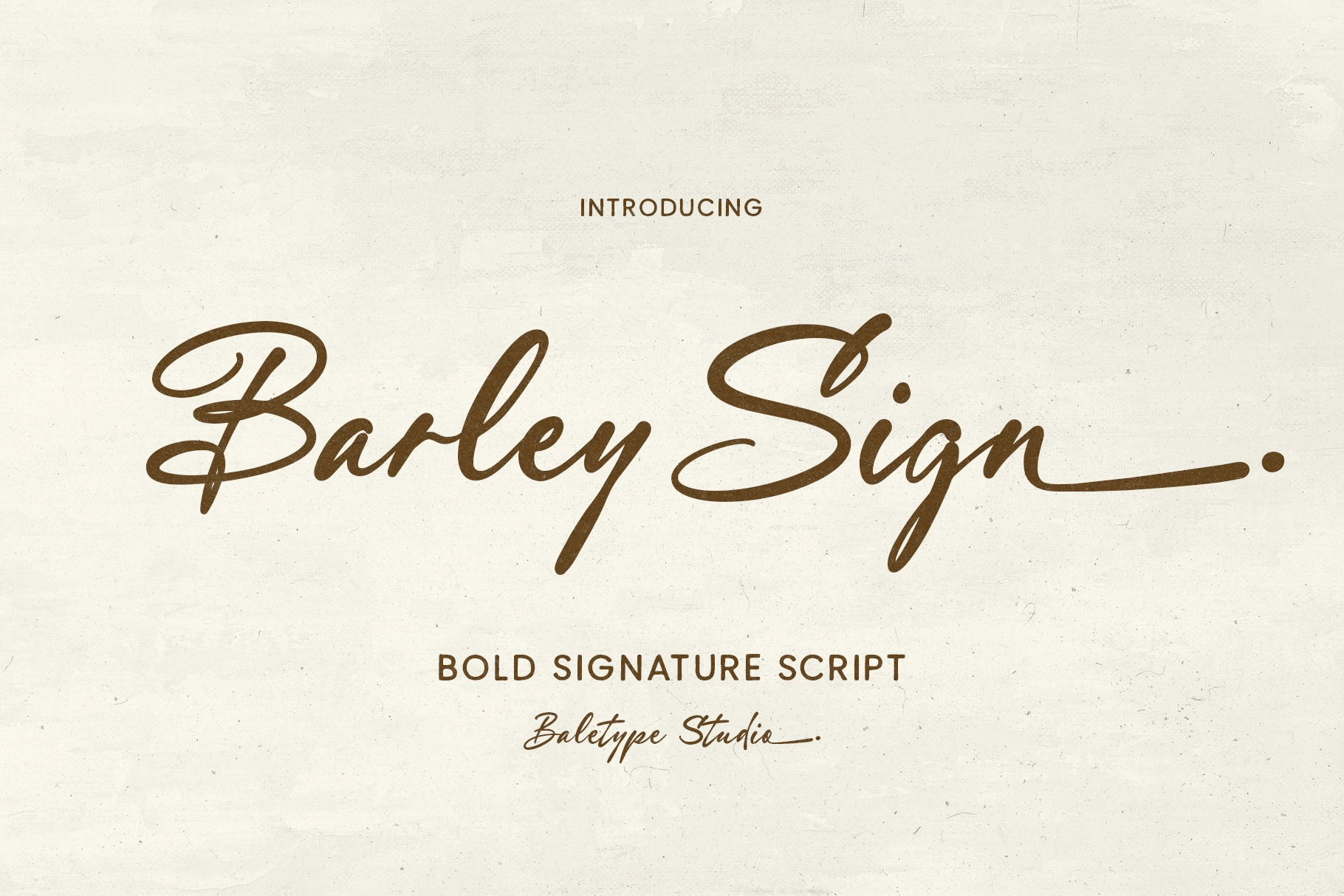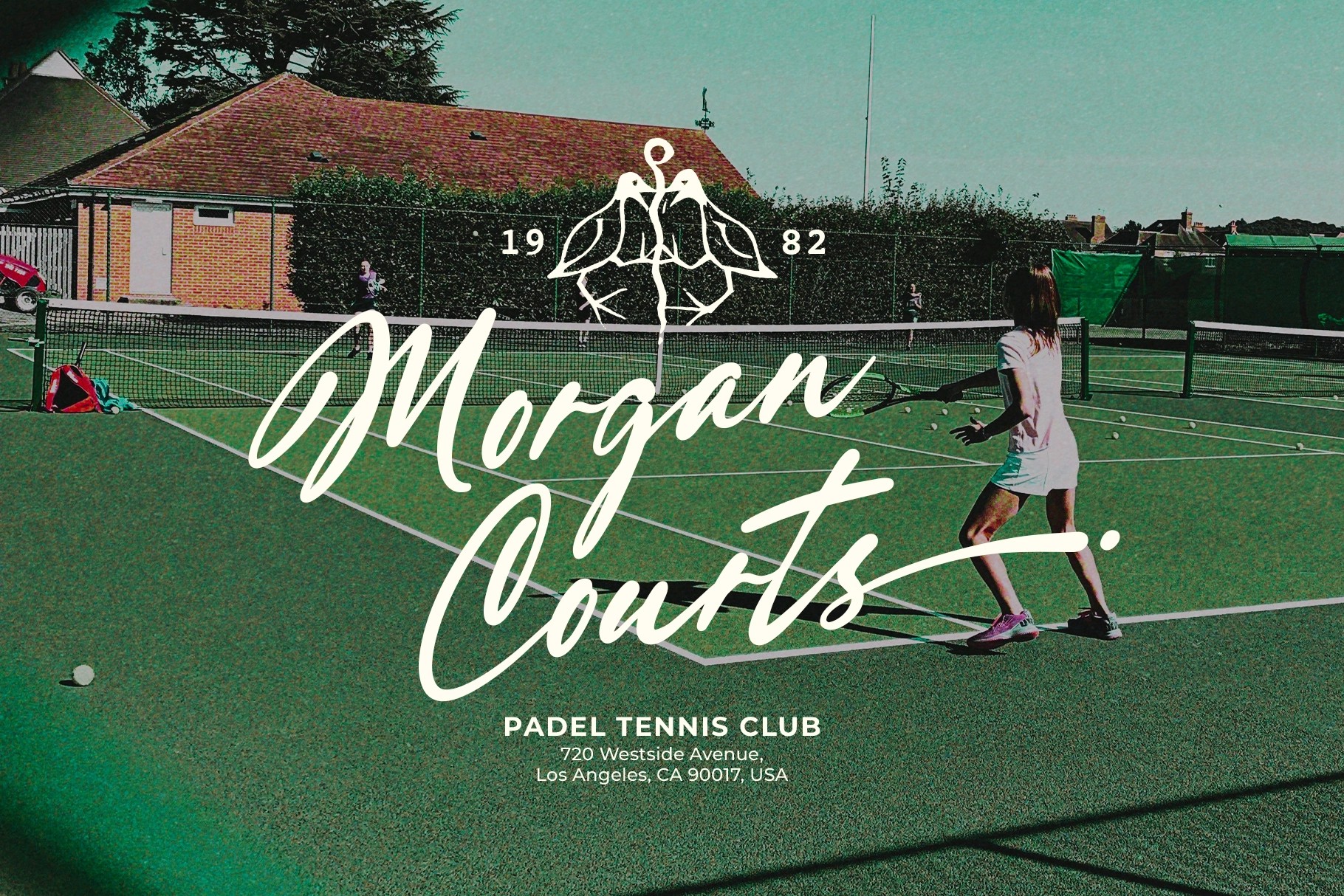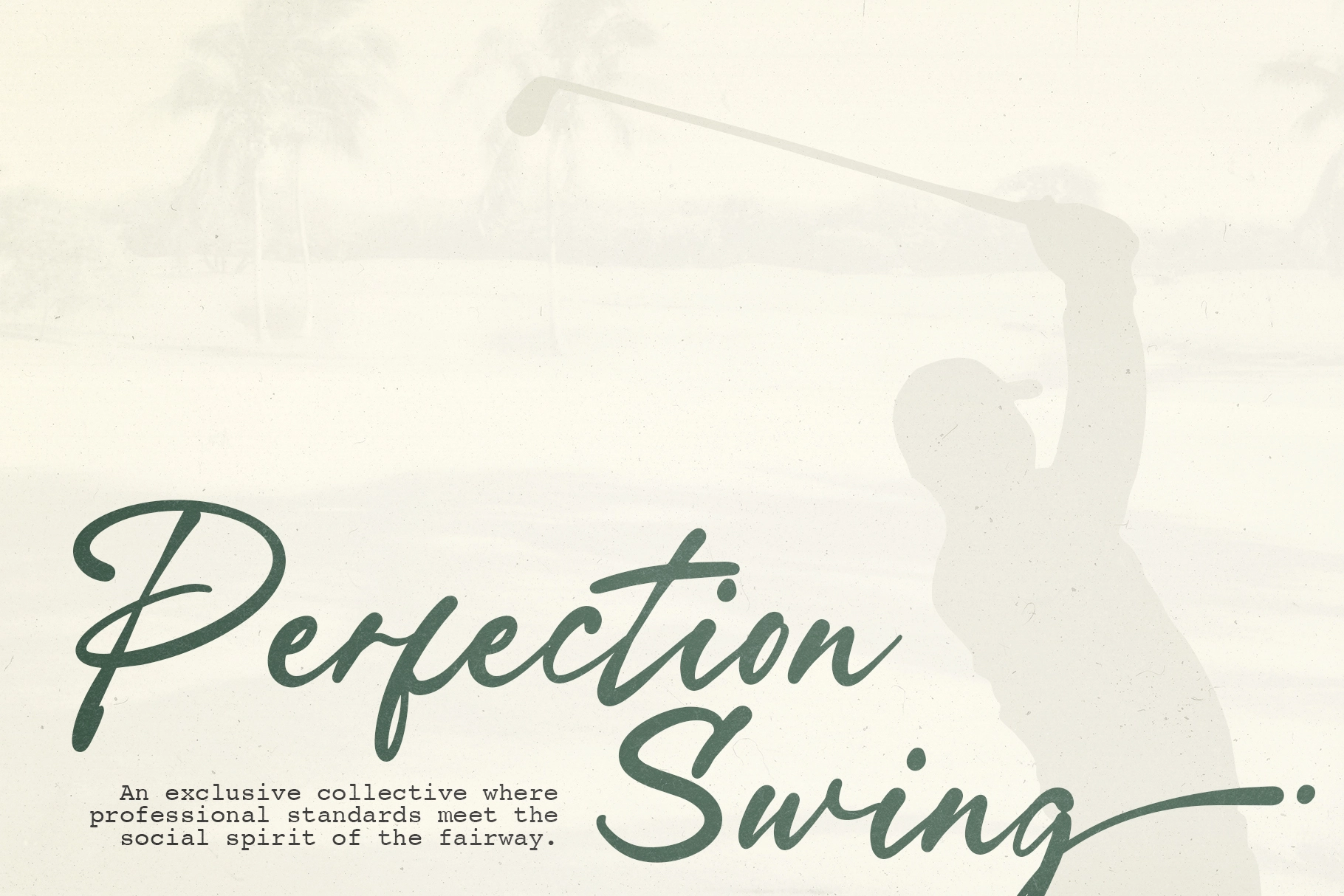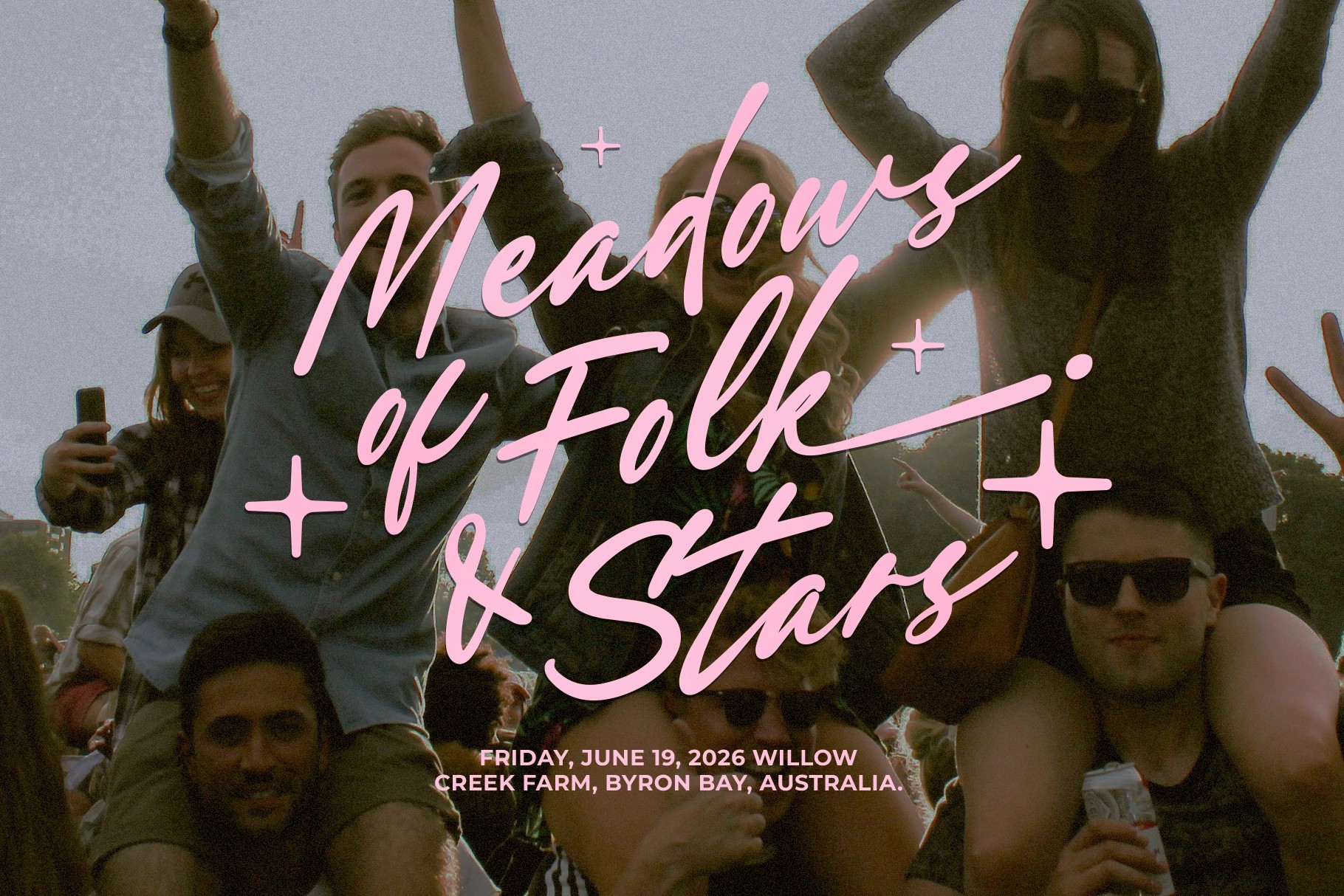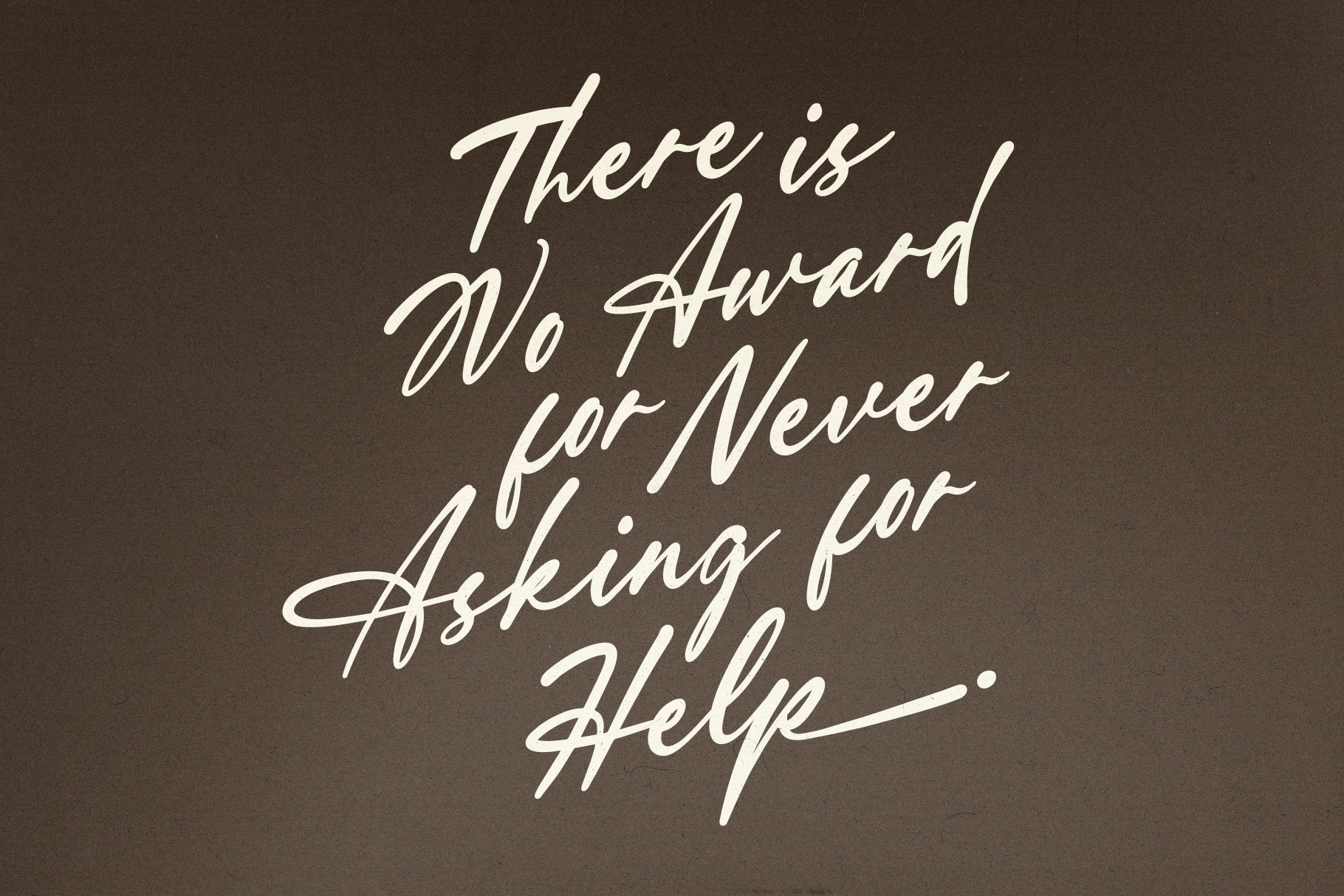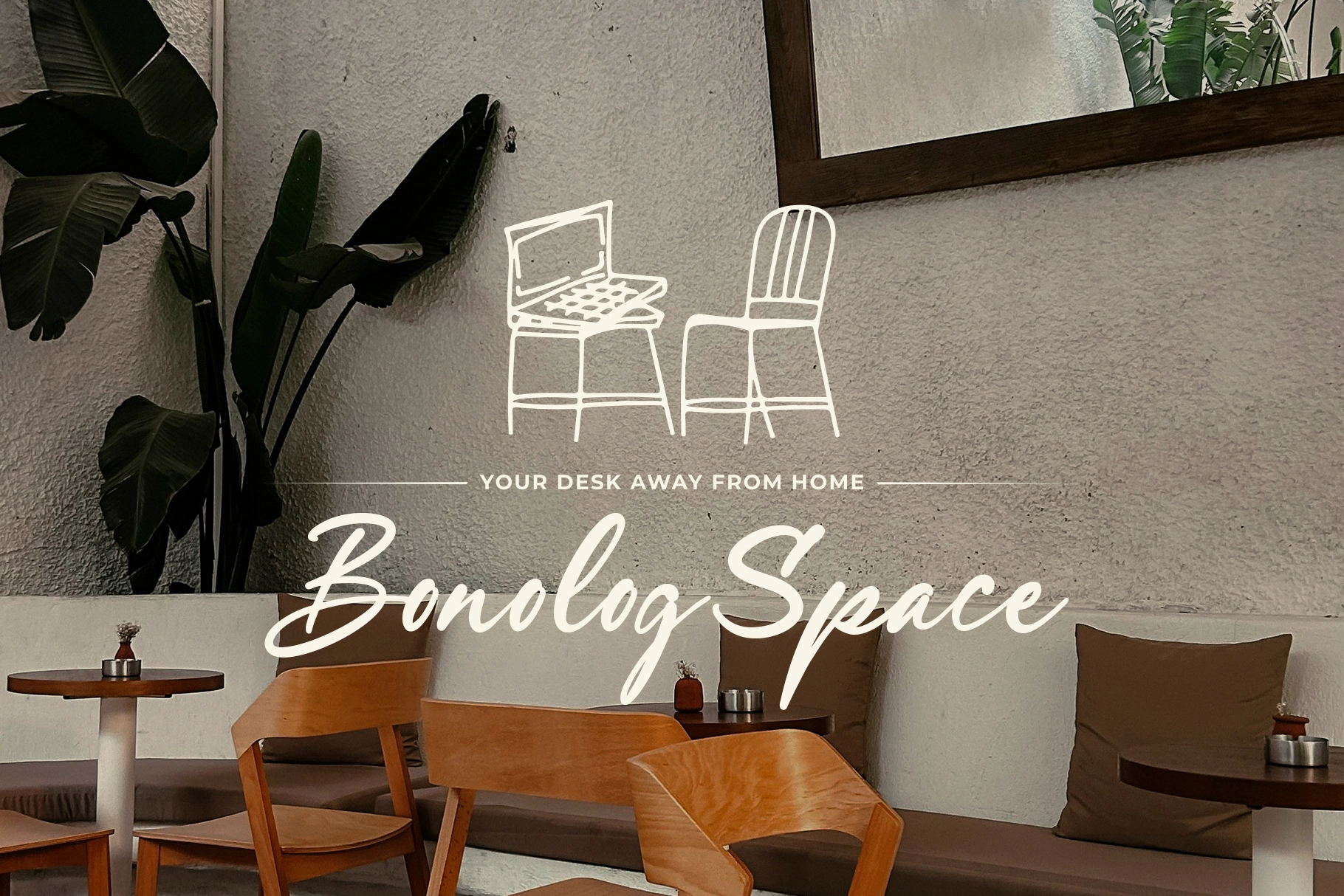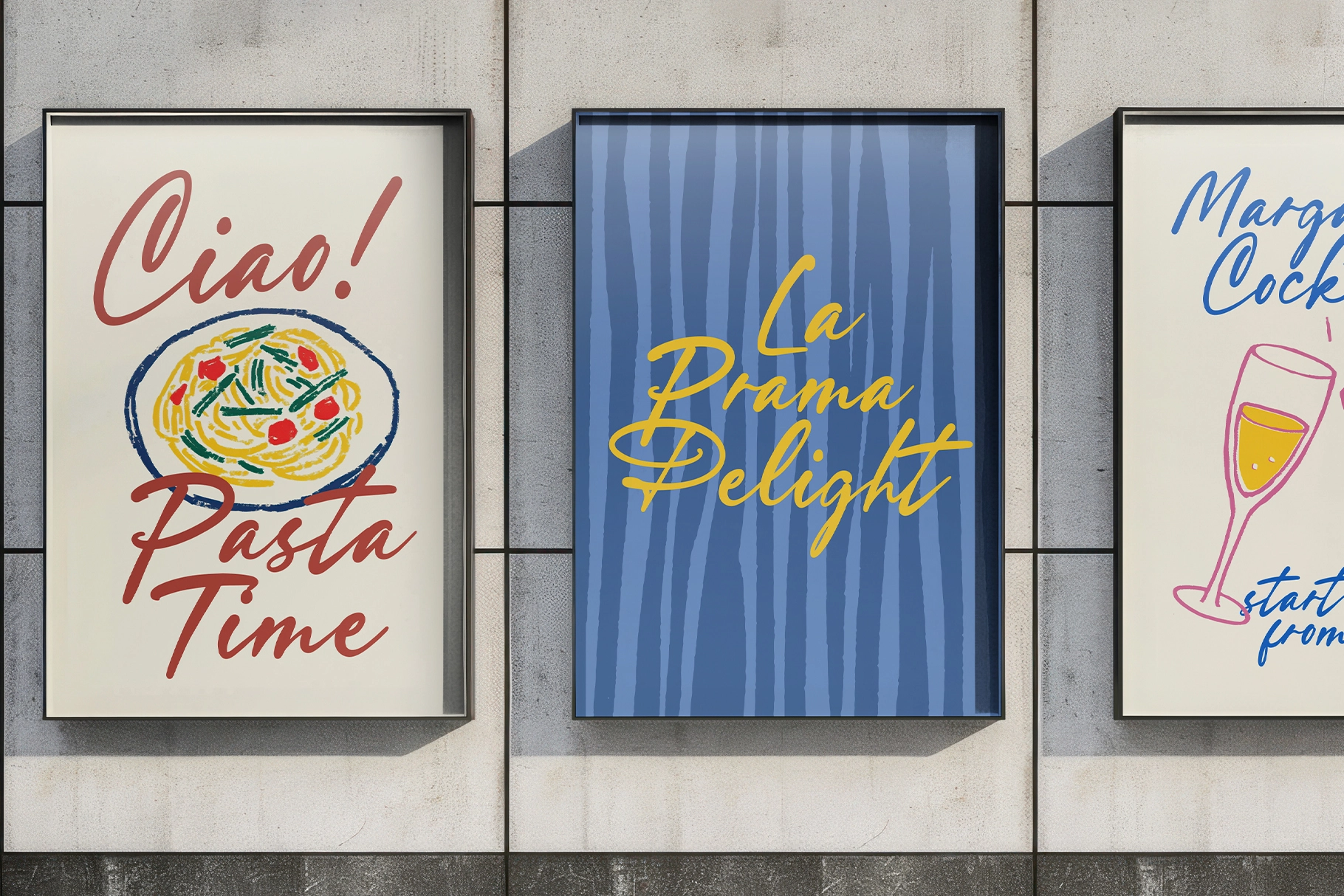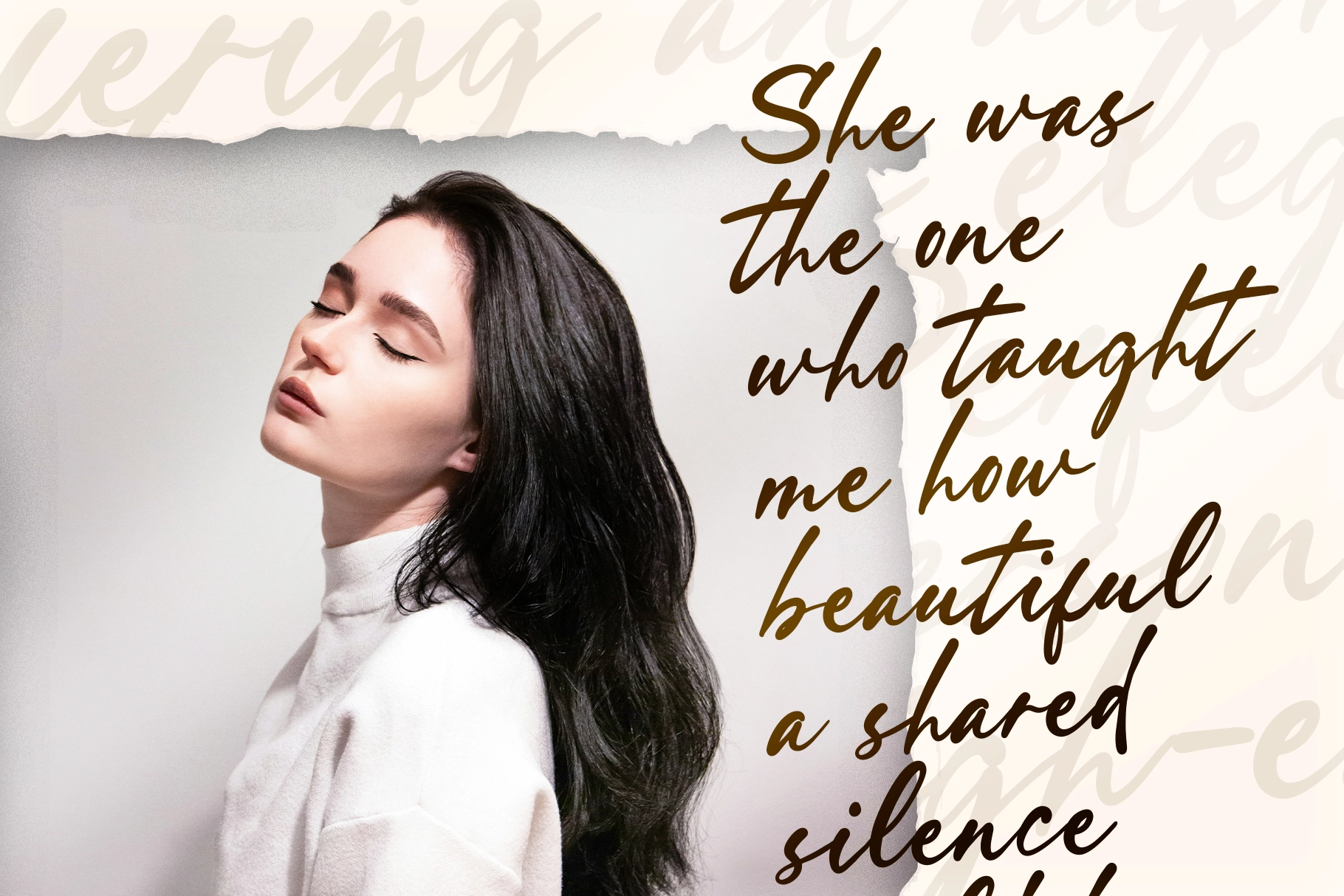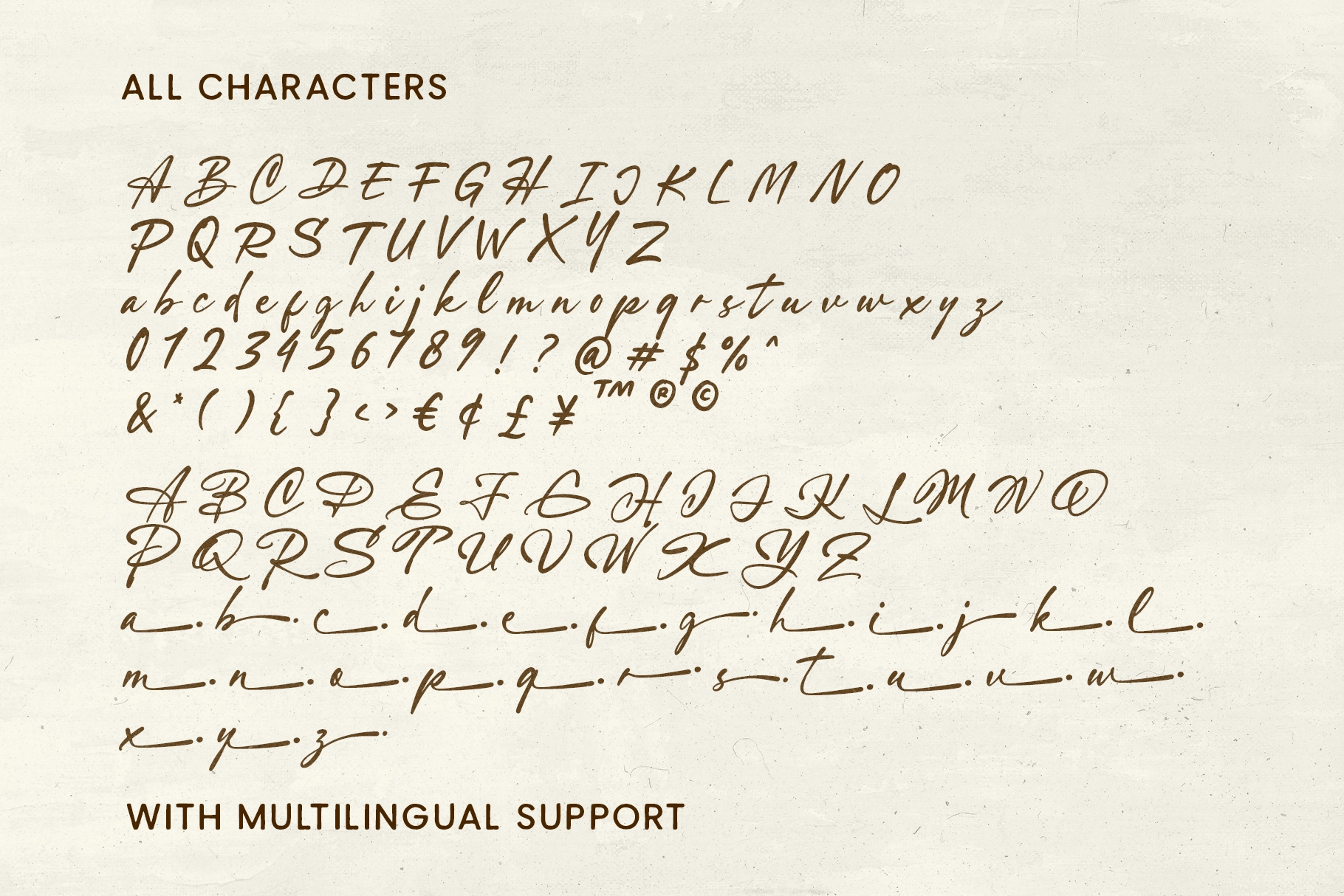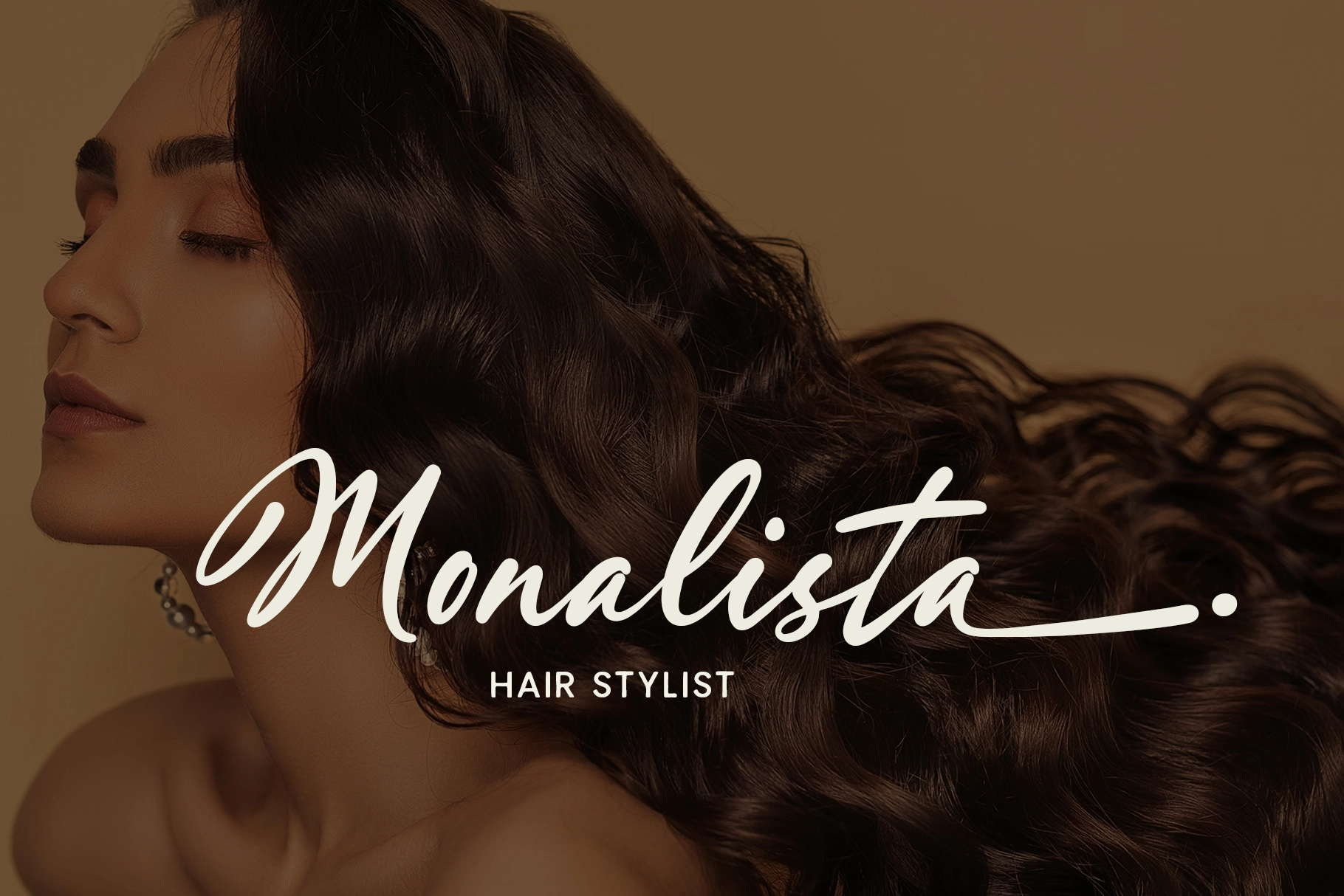
Barley Sign - Bold Signature Script Font
This signature script has a handwritten rhythm with bold strokes, loose movement, and long swash endings that give names and short phrases a confident personal mark. Its uppercase letters have a sharp calligraphic pull, while the lowercase set is smoother and more casual, making the font useful for polished branding with a human hand behind it.
Barley is a strong fit for signature logos, personal branding, fashion labels, photography marks, quote graphics, wedding invitations, packaging accents, boutique signage, social media posts, business cards, stationery, and editorial titles. The alternate characters help create extended strokes and custom-looking wordmarks, so even a simple name can look like it practiced in the mirror first.
- Alternates
- Long end swashes